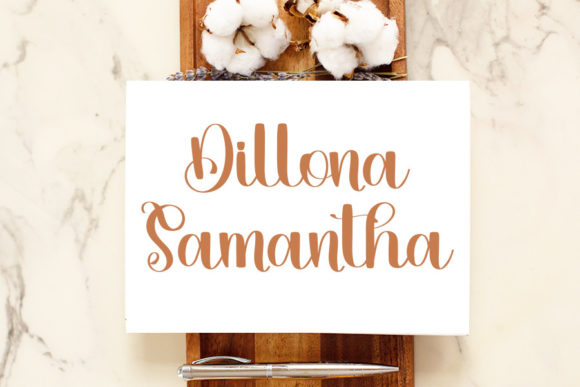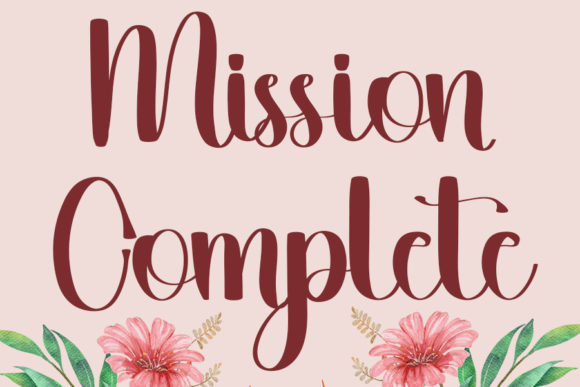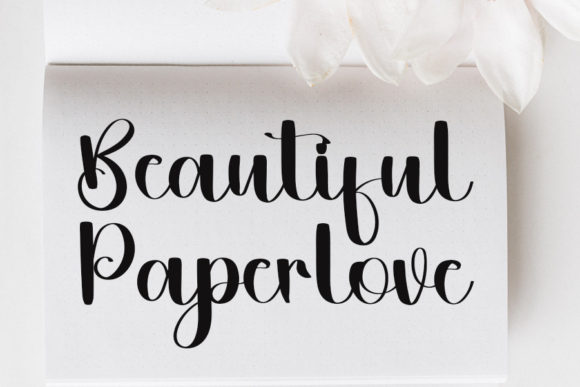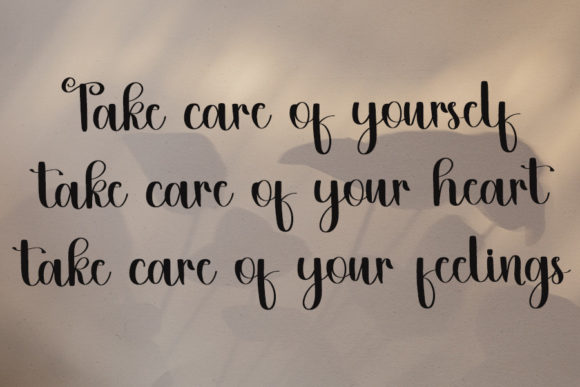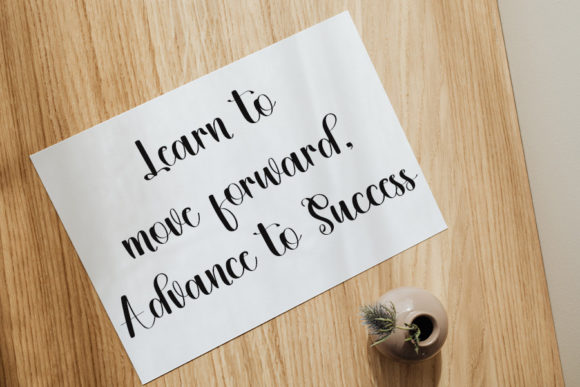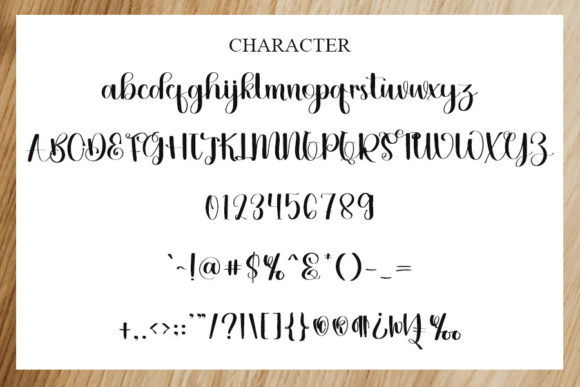
Aminah Font: Elevate Your Creative Projects with Chic Handwritten Style
Aminah Font is a stylish and modern handwritten font that has taken the design world by storm. Its unique blend of elegance and playfulness makes it the perfect choice for designers, crafters, and DIY enthusiasts looking to add a touch of sophistication to their projects. Whether you’re creating visual content for Instagram, crafting beautiful calligraphy scripts, or working on a DIY project, Aminah Font is sure to turn your creative ideas into stunning works of art.
What Makes Aminah Font So Special?
Aminah Font boasts a distinctive handwritten style that exudes chic and trendiness. Its carefully crafted letters are designed to convey a sense of elegance and refinement, making it ideal for a wide range of applications. From social media graphics and blog posts to invitations, posters, and craft projects, Aminah Font is versatile enough to complement any design.
Perfect for Instagram and Social Media
In today’s visually-driven world, having a strong online presence is crucial. Aminah Font can help you stand out on Instagram and other social media platforms. Its stylish and modern aesthetic will elevate your graphics, quotes, and stories, making them more engaging and shareable. Whether you’re a blogger, influencer, or small business owner, Aminah Font can help you build a strong brand identity and connect with your audience.
Ideal for Calligraphy and DIY Projects
For crafters and DIY enthusiasts, Aminah Font offers endless possibilities. Use it to create beautiful calligraphy scripts for journaling, scrapbooking, or card-making. Its elegant and flowing style makes it perfect for adding a personal touch to your handmade projects. You can also use Aminah Font to create stunning quotes, posters, and wall art that will add a touch of sophistication to any room.
Key Features of Aminah Font
- Handwritten style: Aminah Font boasts a unique and stylish handwritten style that adds a touch of elegance to any project.
- Versatile: Aminah Font is suitable for a wide range of applications, from social media graphics to calligraphy scripts and DIY projects.
- High-quality: Aminah Font is a high-quality font that is designed to produce crisp and clear results, even at small sizes.
Tips for Using Aminah Font
To get the most out of Aminah Font, here are a few tips to keep in mind:
- Experiment with different sizes: Aminah Font looks great at a variety of sizes, from small and delicate to large and bold.
- Play with colors: Aminah Font pairs well with a range of colors, from bold and bright to soft and pastel.
- Add embellishments: Consider adding embellishments, such as flourishes or swashes, to give your text an extra touch of elegance.
Aminah Font is a versatile and stylish handwritten font that is perfect for designers, crafters, and DIY enthusiasts. Its unique blend of elegance and playfulness makes it ideal for a wide range of applications, from social media graphics to calligraphy scripts and DIY projects. With its ease of use, high-quality design, and endless possibilities, Aminah Font is sure to become a favorite in your design toolkit.